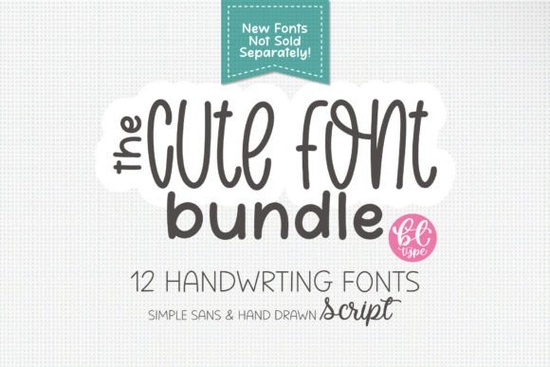
The Cute Handwriting Bundle Font for Creative Projects
If you've ever spent too long scrolling through font libraries looking for something that actually feels handwritten, The Cute Handwriting Bundle Font is worth a closer look. It packs 12 exclusive handwritten fonts into a single collection and none of them are available individually. That means you're getting styles you won't find anywhere else.
This kind of variety matters whether you're a crafter selling on Etsy, a small business owner designing your own marketing materials, or someone who just enjoys making journal pages look polished. Instead of buying fonts one at a time and hoping they work together, you get a curated set designed to complement each other.
What exactly comes in this bundle?
The collection includes 12 distinct handwriting fonts. Each one has a different feel some are round and bubbly, others are more relaxed and natural. A few examples you'll find inside:
Softie Note a soft, rounded script that stays readable at small sizes
Gadiani an elegant script with smooth, connected letterforms
Angela flowing and feminine with a natural handwriting rhythm
The remaining fonts in the bundle follow the same thoughtful approach. Each one fills a slightly different design need, so you're not stuck with 12 versions of the same style.
Who is this font bundle actually for?
This bundle works well for a wide range of creative people. Here are some specific uses:
Print-on-demand sellers who need fresh quote designs for mugs, t-shirts, and tote bags
Crafters and card makers looking for a personal, hand-lettered look
Small business owners creating logos, packaging, or social media graphics on a budget
Journal and planner designers who want fonts that feel organic and warm
Digital content creators making Instagram posts, Pinterest pins, or YouTube thumbnails
If you regularly work on projects that call for a handwritten style, having multiple options in your font library makes a real difference. You won't have to reuse the same font over and over, which helps keep your designs looking fresh.
How does it compare to other handwriting fonts?
If you already like the style of fonts like Softie Note or Angela but want more options, this bundle is a practical next step. And for anyone who prefers a rustic or stamped look alongside their script fonts, pairing these with something like Handmade With Love from the same collection gives you that range without extra shopping.
Designers who appreciate a clean script to balance with bolder typefaces will find that Gadiani works nicely in that role.
A quick tip for using handwriting fonts well
Handwriting fonts look best when you don't overuse them. Pick one or two from the bundle for a single project instead of mixing several together. Pair a script font with a simple sans-serif for body text this keeps your design readable while still feeling personal.
If you're designing for print-on-demand, test how the font looks at the actual print size. What looks great on screen might be too thin or too tight when printed on a mug or a shirt.
The Cute Handwriting Bundle Font is a solid addition to any designer's toolkit. For projects that need a warm, hand-lettered feel, it gives you plenty of options without stretching your budget.